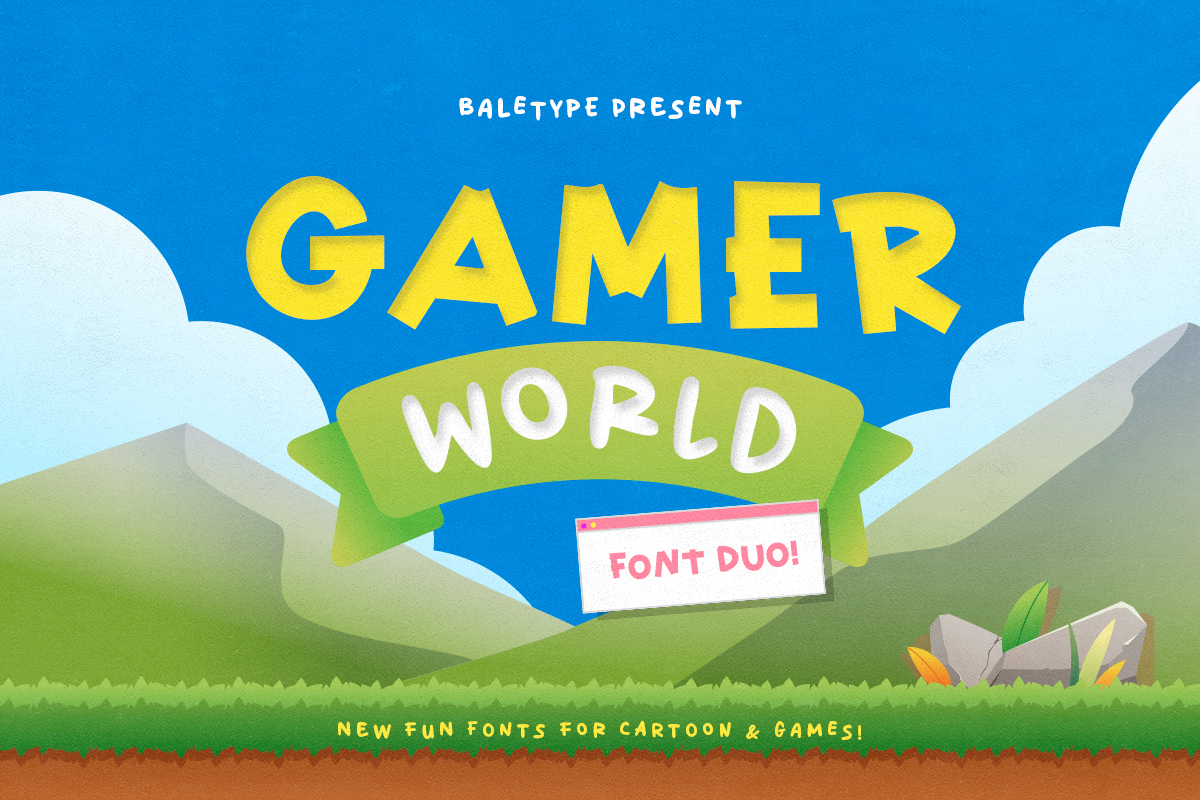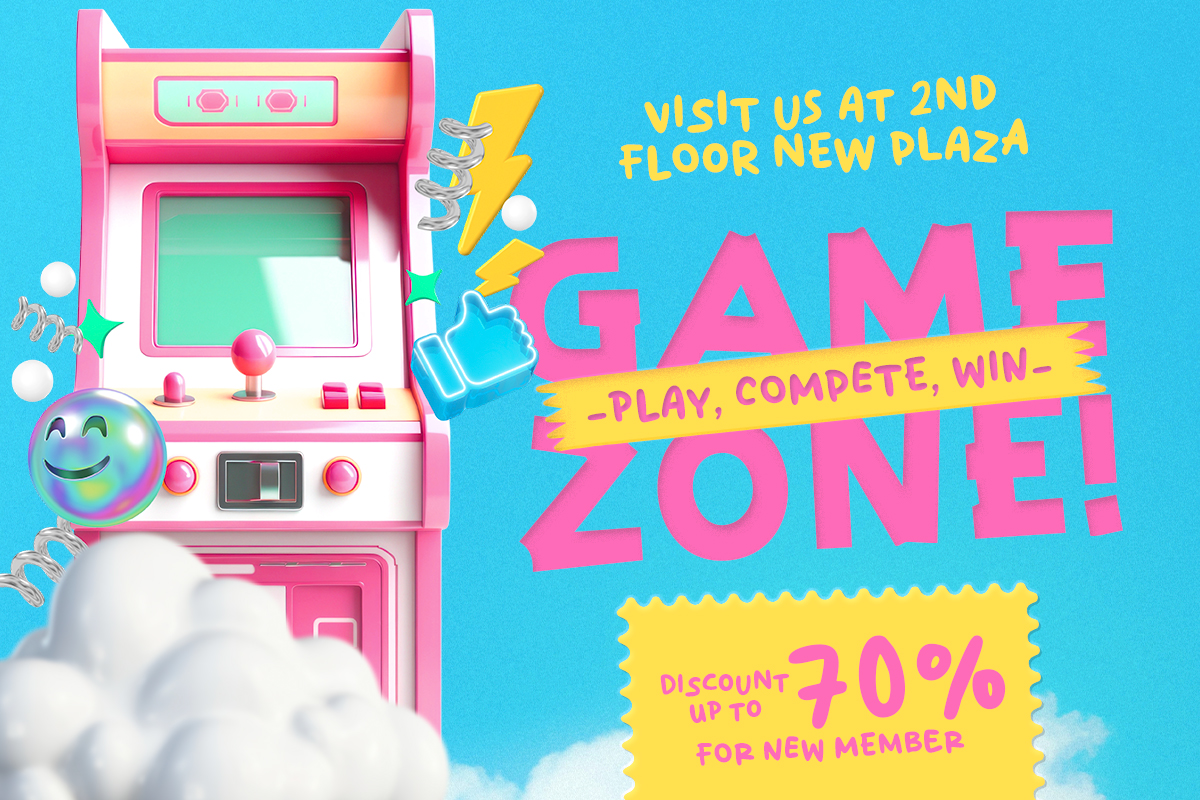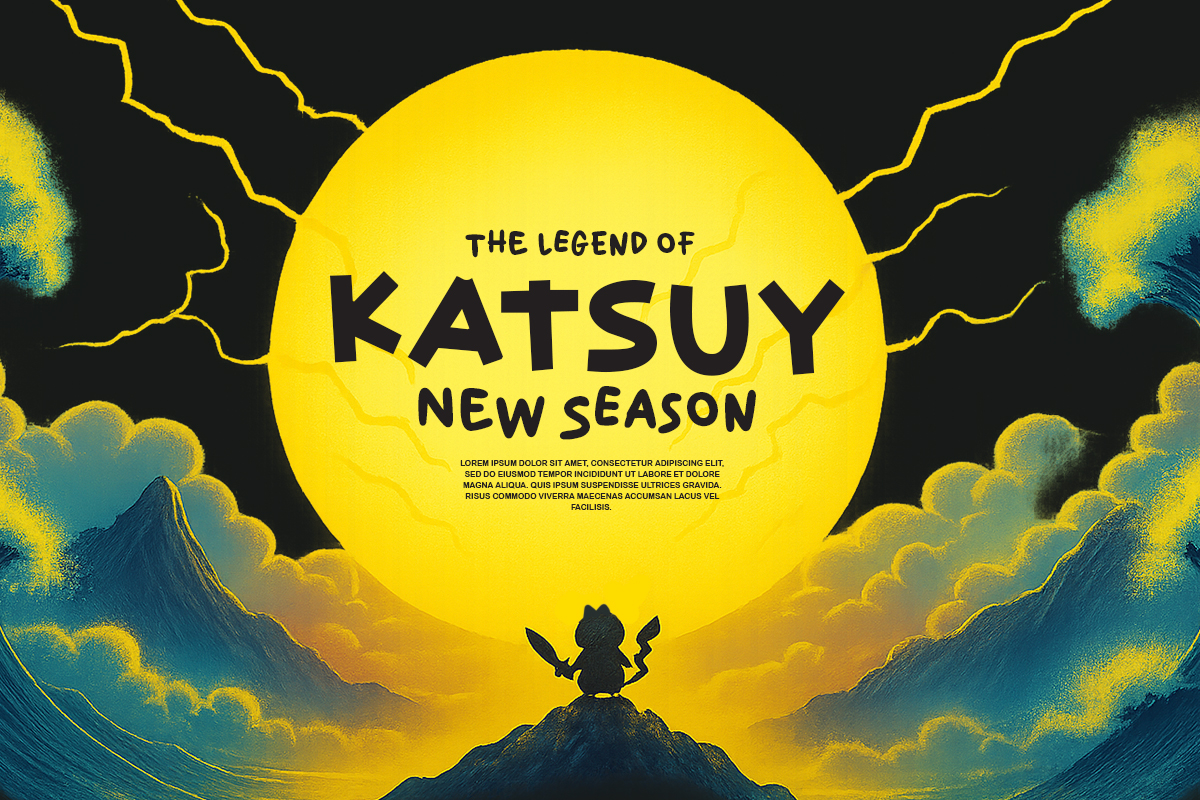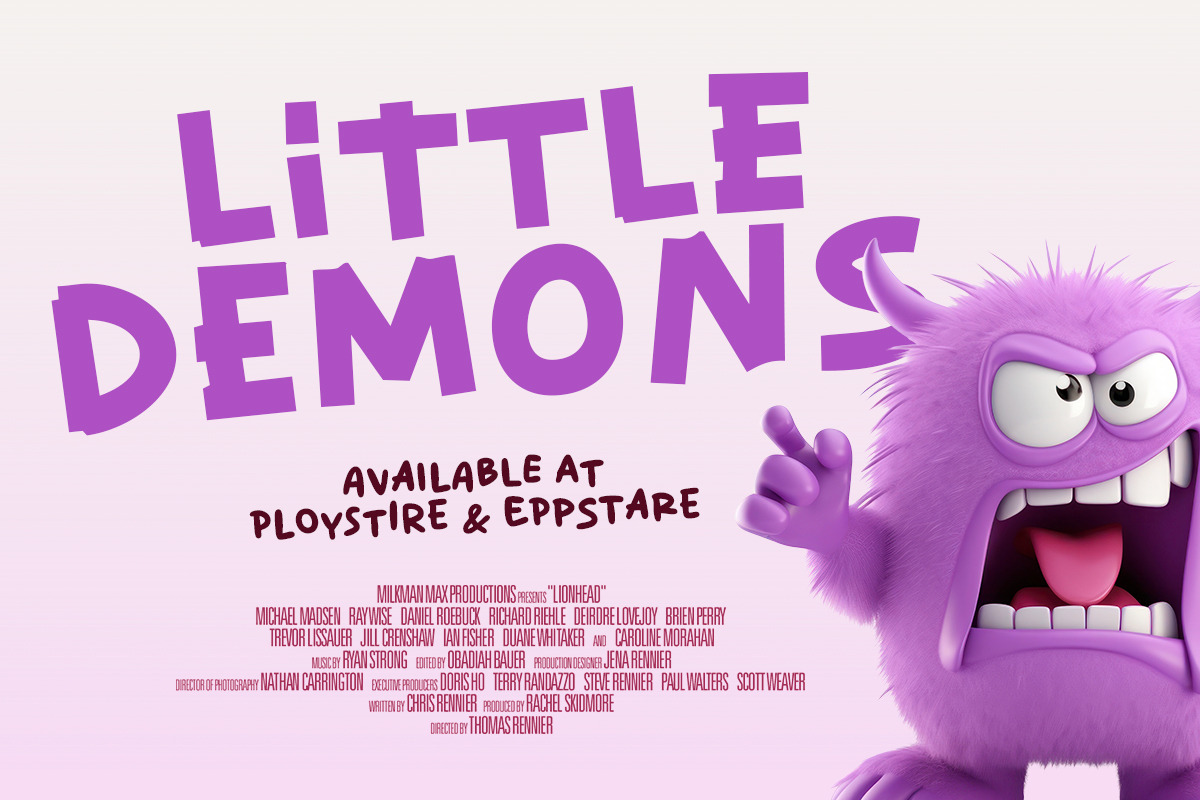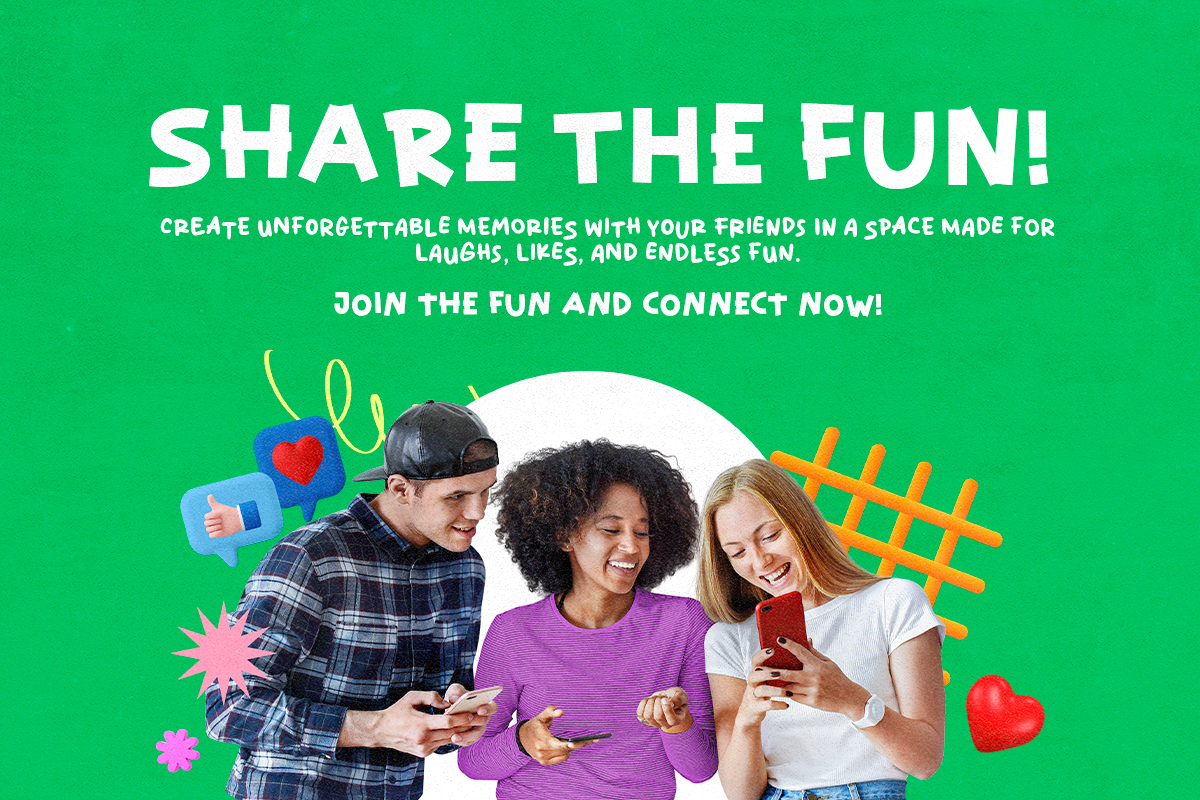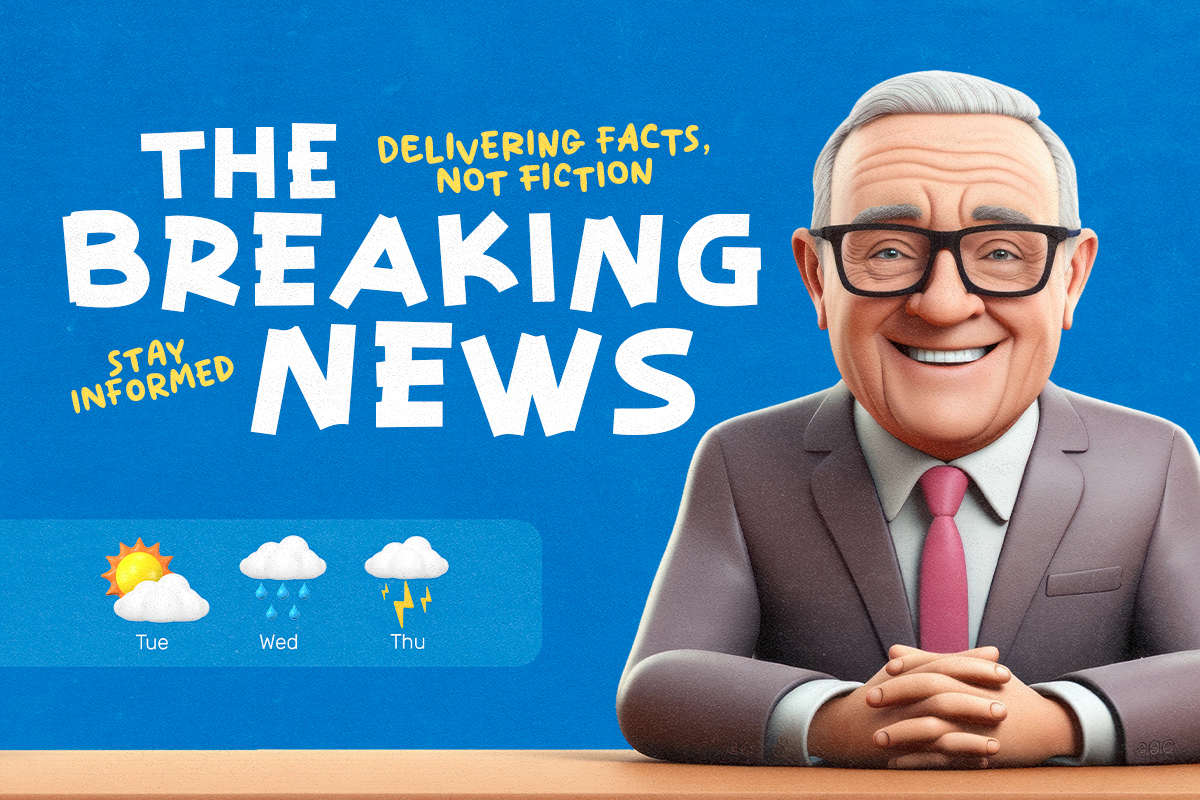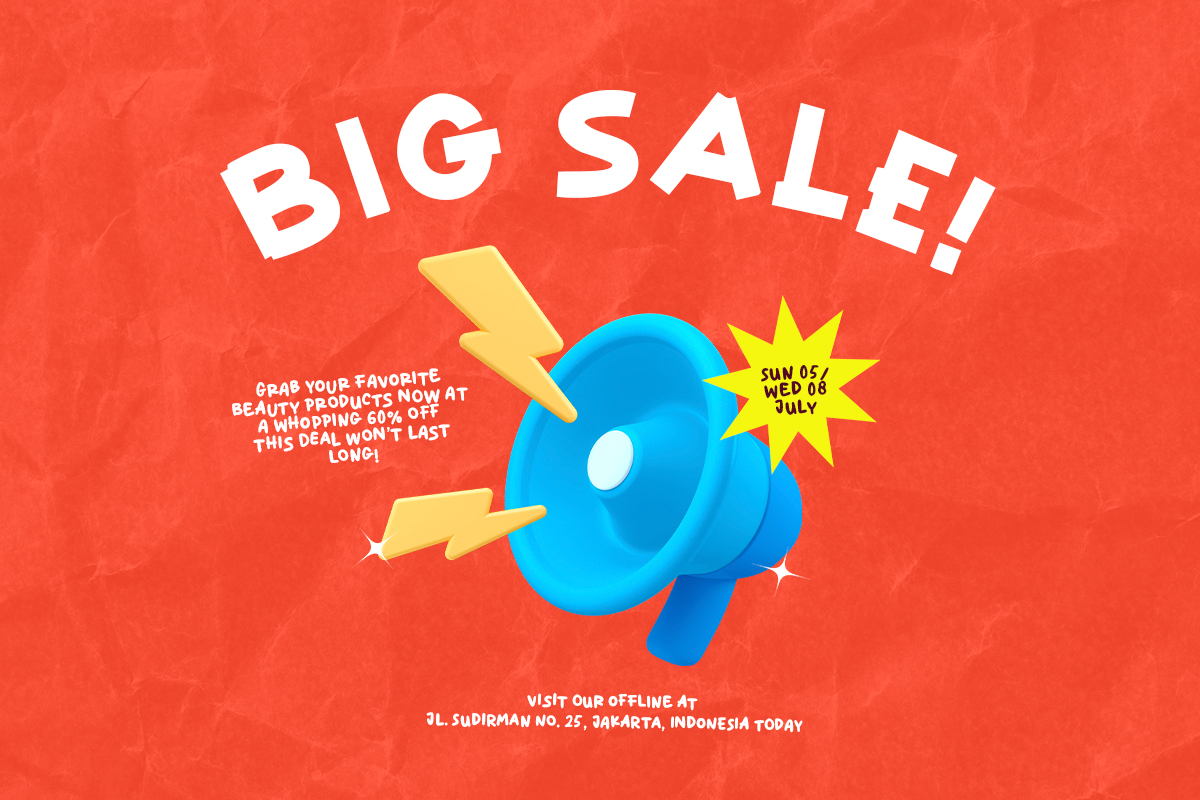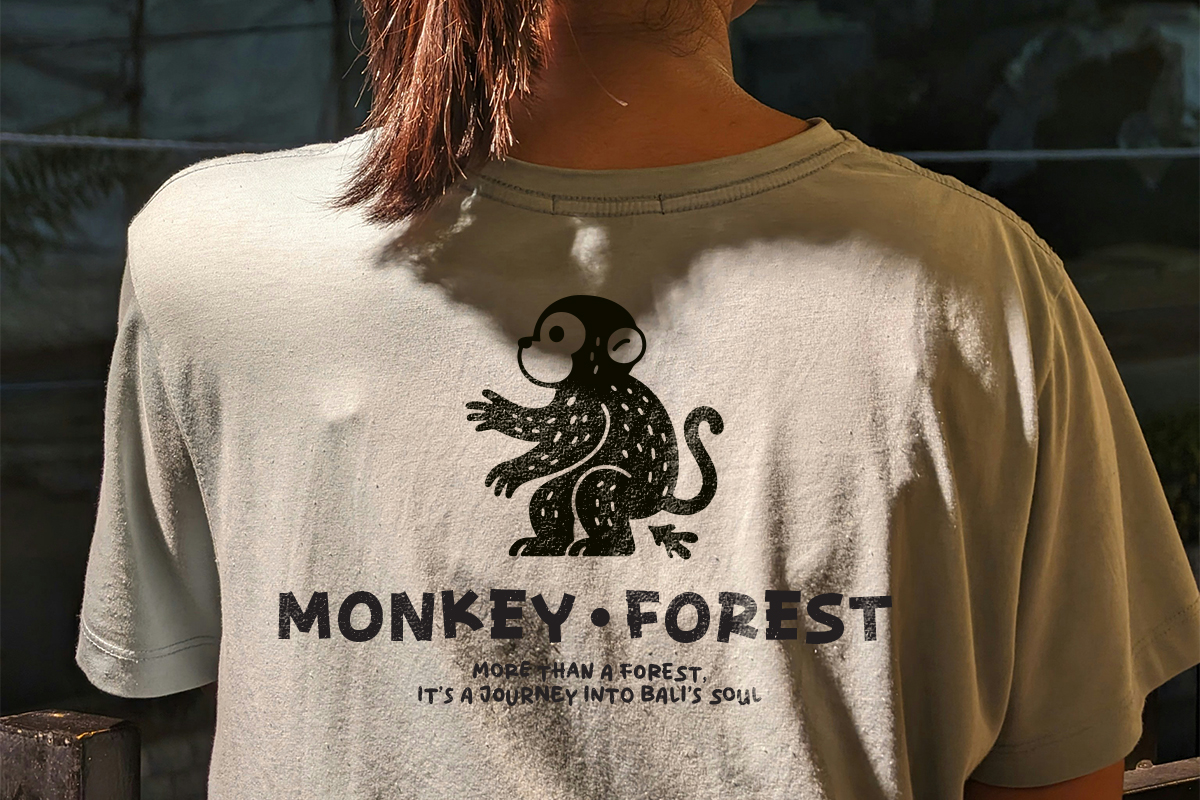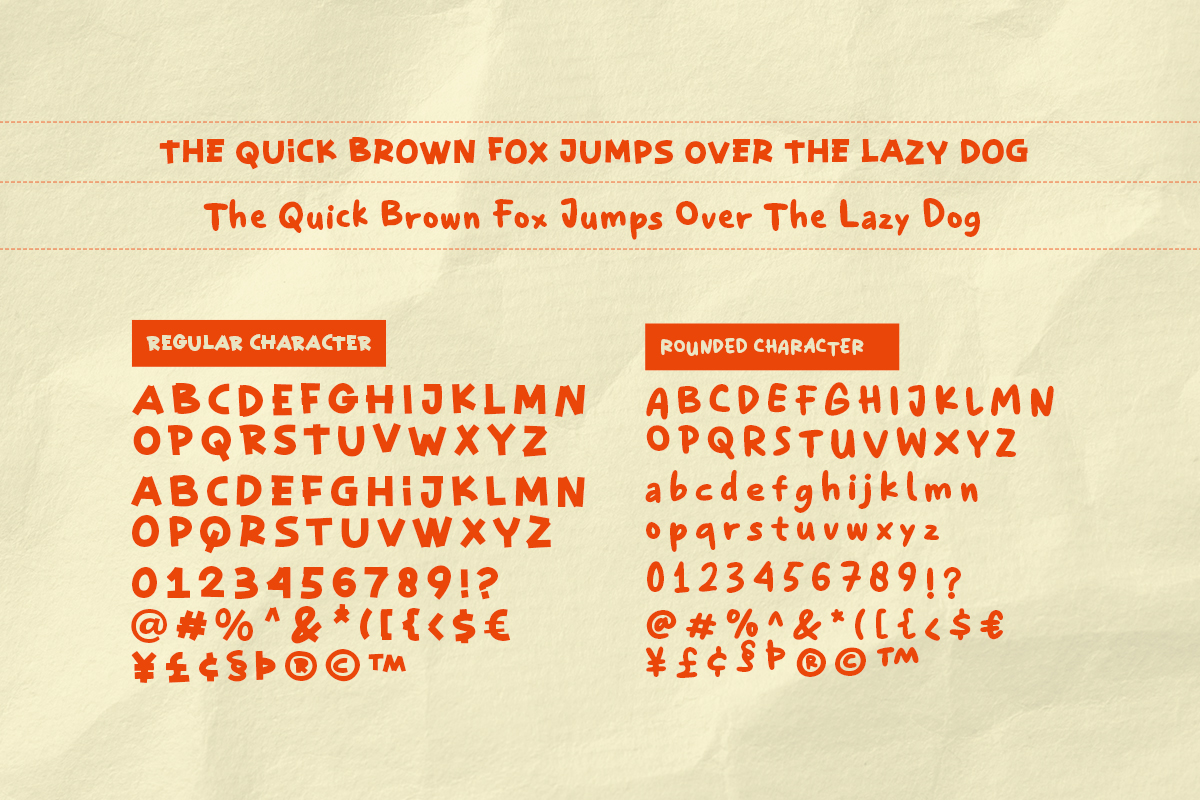
Introducing, Gamer World, a fun and playful font duo! Gamer World is a font duo that contains two fun fonts including sharp sans and rounded handwritten font. You can use this font stand alone or combining both. Suitable for apps, game, quotes, or even branding. This font also support multi language!
Gamer World – Fun Font Duo
Introducing, Gamer World, a fun and playful font duo! Gamer World is a font duo that contains two fun fonts including sharp sans and rounded handwritten font.